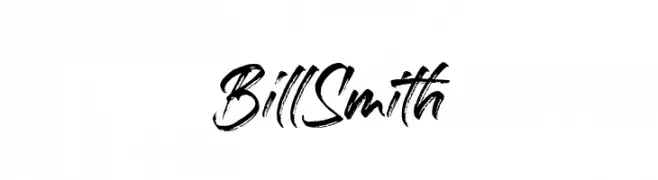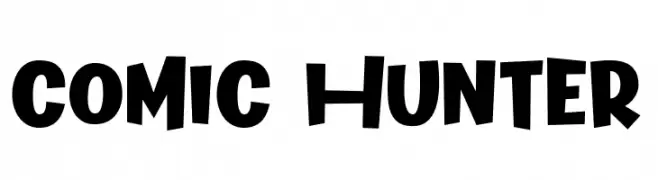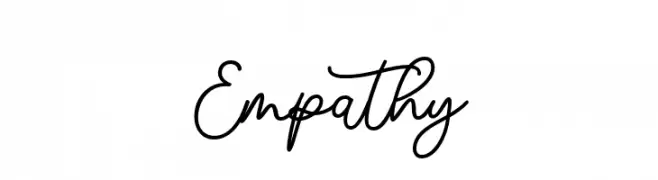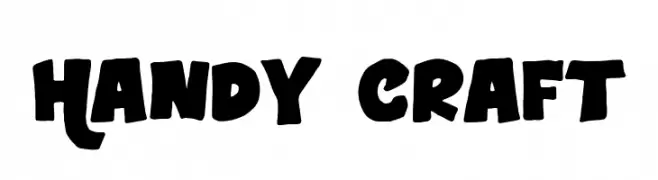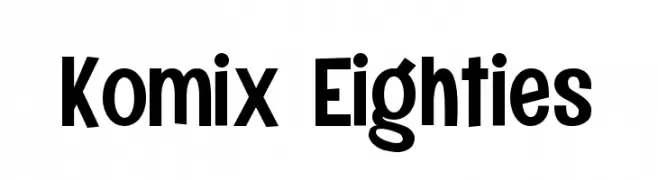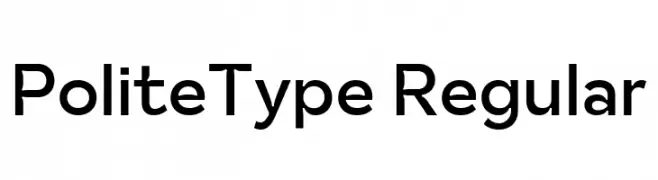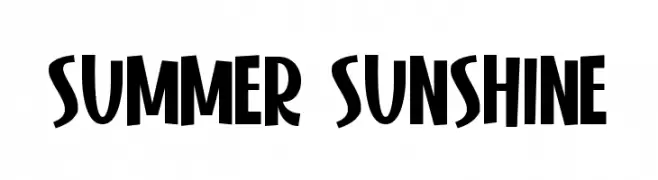
A graceful and flowing script font with elegant, connected letters.
A bold, expressive brush-style font with dynamic, textured strokes.
A playful, hand-drawn font with bold, cartoonish outlines.
A modern sans-serif font with geometric shapes and uniform stroke width.
A bold, playful font with dynamic, slightly irregular letterforms.
A bold, playful font with a handcrafted, whimsical style.
A playful, bold font with rounded, bubbly characters.
A bold, playful font with cartoon-like characters and a dynamic, energetic style.
A bold, playful font with a comic book style from the 1980s.
A playful font with paw print accents and a hand-drawn style.